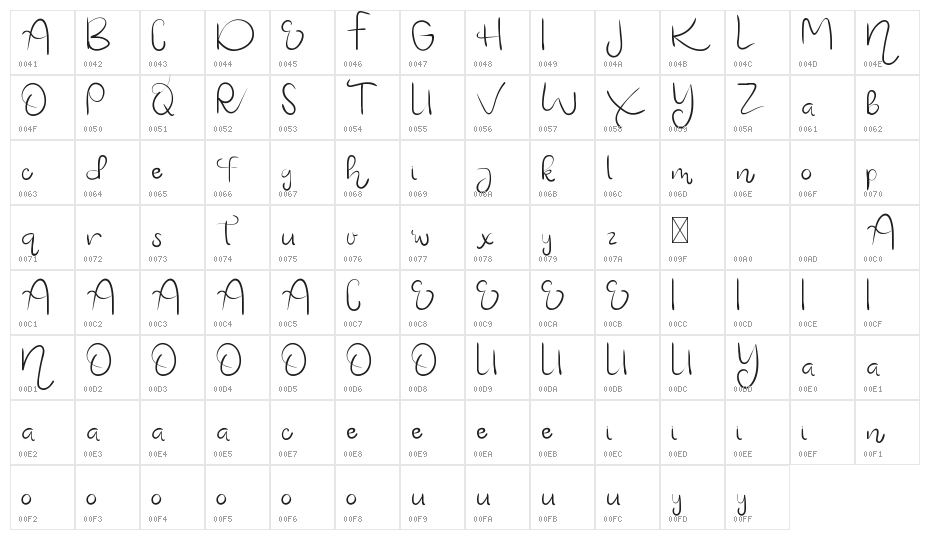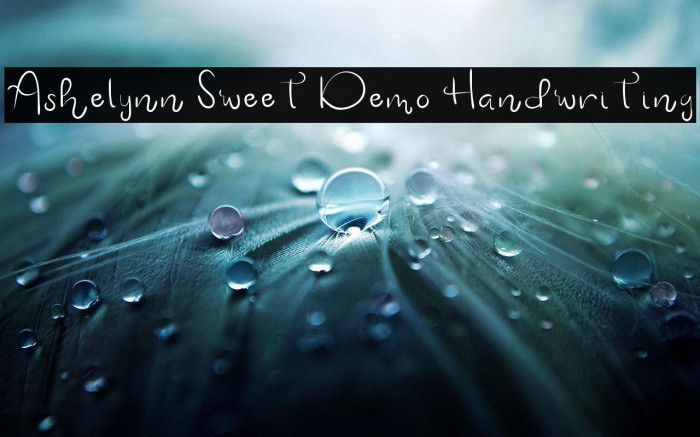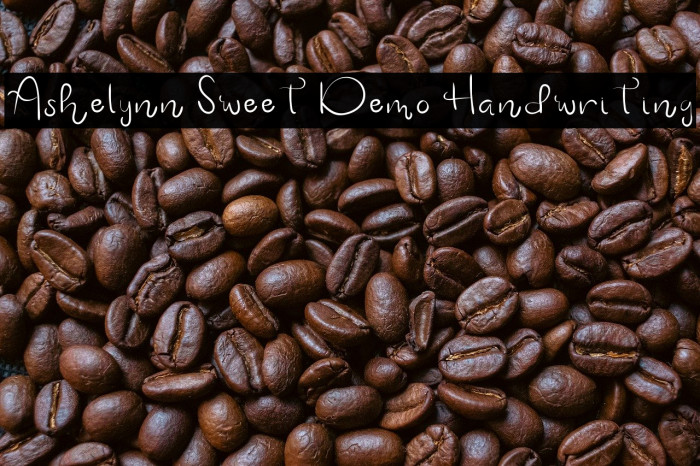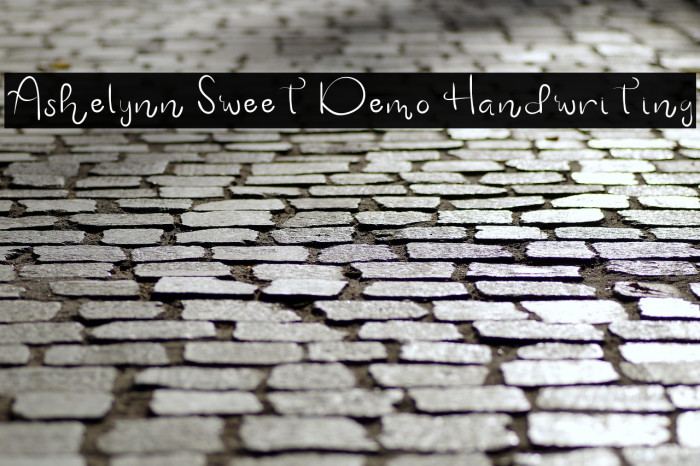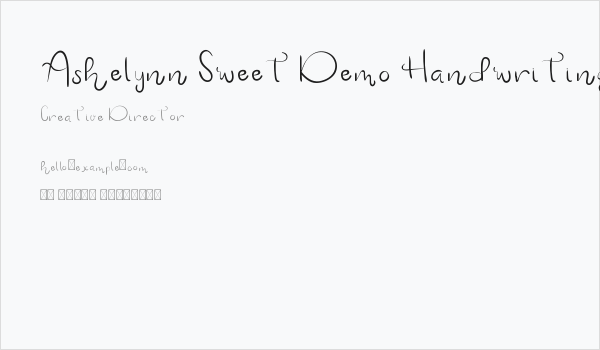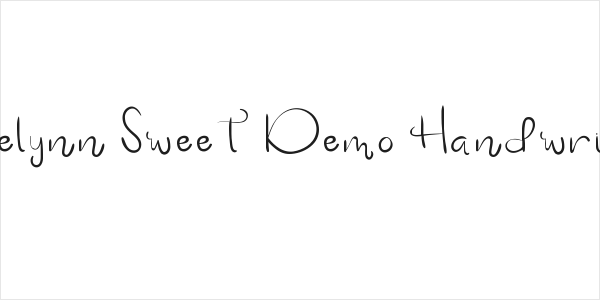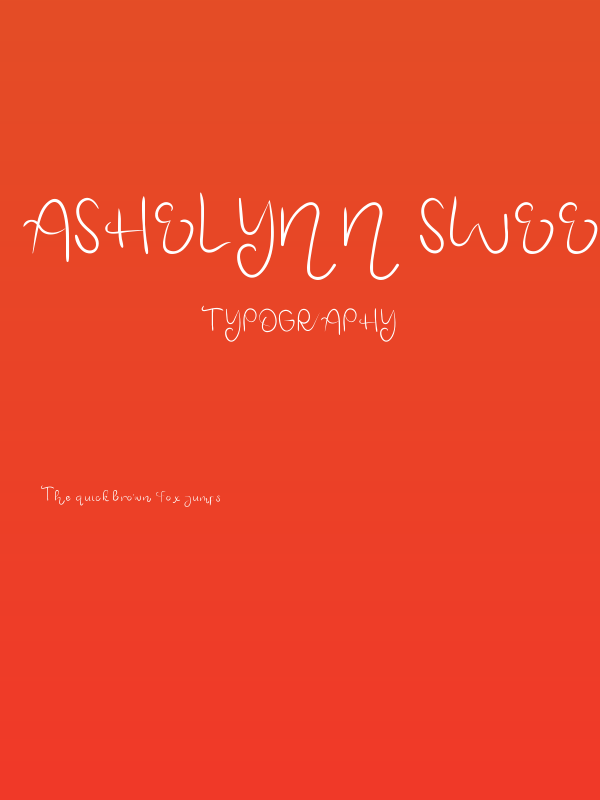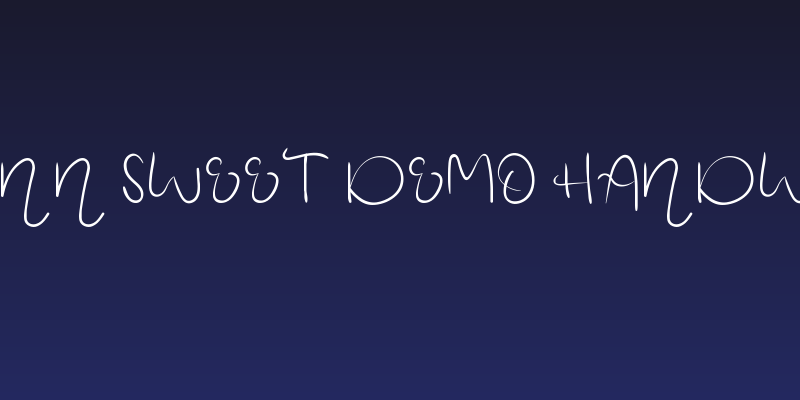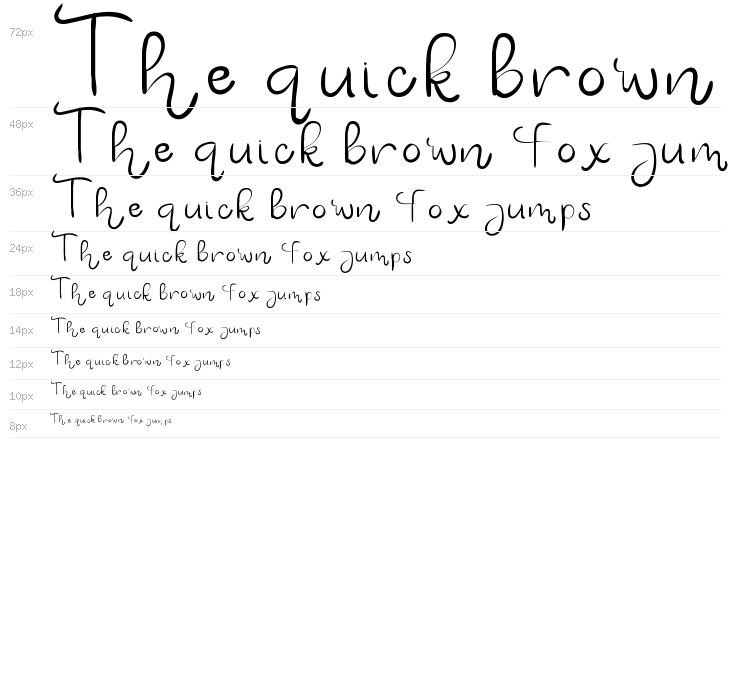
Ashelynn Sweet Demo Handwriting Font
Ashelynn Sweet Demo Handwriting Description
This font features a playful and whimsical handwriting style, characterized by its flowing and cursive-like strokes. The letters are crafted with a sense of spontaneity, giving it a personal and informal touch. The uppercase letters are tall and slightly narrow, with unique loops and curves that add to its charm. The lowercase letters maintain a consistent style, with some letters having exaggerated loops and swirls, enhancing the font's artistic appeal. The numbers and special characters follow the same playful design, making it suitable for creative and expressive projects.
| Proposed Projects | Ideal for greeting cards, invitations, personal branding, and creative projects that require a touch of personality and charm. |